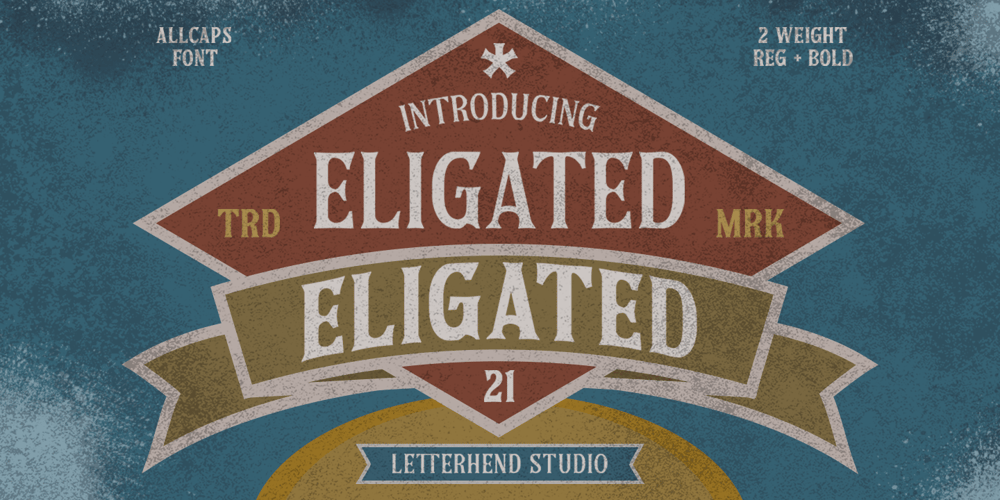
Eligated Font Family was designed by Hendry Juanda and published by Letterhend. Eligated contains 2 styles and family package options. Introducing, Eligated – a display serif typeface with nostalgic look and feel. Inspired from 60s and 70s signages, labels, and ads. This type of font perfectly made to be applied especially in logo, headline, signage and the other various formal forms such as invitations, labels, logos, magazines, books, greeting / wedding cards, packaging, fashion, make up, stationery, novels, labels or any type of advertising purpose.Features : uppercase & lowercase numbers and punctuation multilingual PUA encoded regular & bold version We highly recommend using a program that supports OpenType features and Glyphs panels like many of Adobe apps and Corel Draw, so you can see and access all Glyph variations.